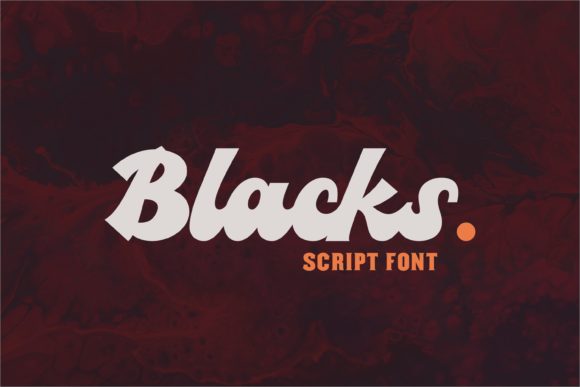
The Designer’s Delight: Exploring the Charm of Blacks Font
I’ll never forget the time I was working on a vintage-themed project for a client, and I just couldn’t find the right font to bring it all together. The design was almost there, but it was missing that special something to make it pop. That’s when I stumbled upon Blacks Font, a bold and chubby handwritten font with a vintage feel that completely transformed my design. In this article, I’ll share my experience with Blacks Font, its unique features, and how to make the most of it in your design projects.
An Honest Review of Blacks Font
What I Love About Blacks Font ✨
- 💥 **Bold and eye-catching**: Blacks Font is perfect for making a statement in your designs. Its bold and chubby strokes grab attention and add a playful touch to any project.
- ✅ **Vintage feel**: The font’s vintage-inspired design adds a unique twist to modern designs, making them stand out from the crowd.
- 🌈 **Versatile**: Blacks Font can be used in a variety of design projects, from branding and advertising to packaging and signage.
While Blacks Font is an amazing addition to any design project, there are a few things to keep in mind:
- ⚠️ **Legibility at small sizes**: Due to its bold and chubby nature, Blacks Font can become less legible at very small sizes. It’s best used at larger sizes or for headlines.
- ⚠️ **Limited use in body text**: While Blacks Font is perfect for headlines and titles, it may not be the best choice for body text due to its bold nature.
A Practical Guide to Using Blacks Font
- Use the font’s bold and eye-catching nature to create attention-grabbing headings and titles.
The Story Behind Blacks Font
Blacks Font was designed with the goal of creating a bold and eye-catching font that would add a unique twist to modern designs. Inspired by vintage typography, the font’s creator aimed to bring a touch of nostalgia to contemporary design projects.
Q: What type of projects is Blacks Font best suited for?
A: Blacks Font is perfect for a variety of design projects, including branding, advertising, packaging, and signage.
Q: Can I use Blacks Font for body text?
A: While Blacks Font is bold and eye-catching, it may not be the best choice for body text due to its bold nature. It’s best used for headlines and titles.
Q: Is Blacks Font available in different weights?
A: Yes, Blacks Font comes in a range of weights, making it versatile for different design applications.